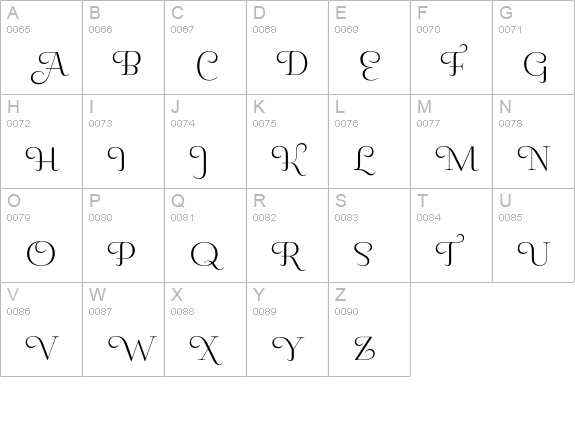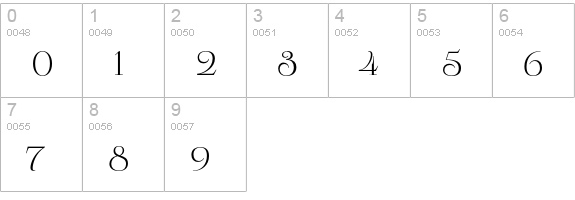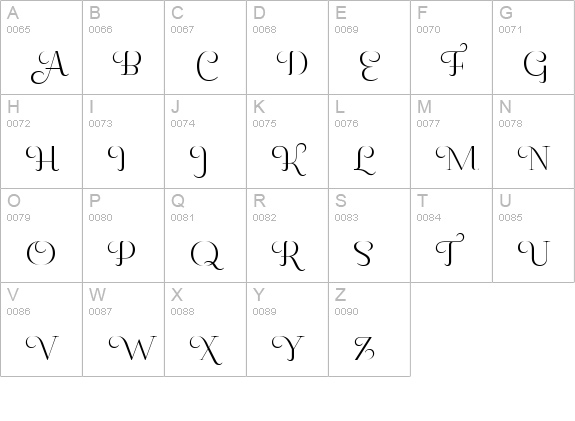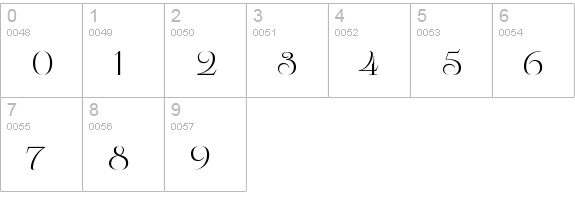
Pauline Didone Light Font Details
Pauline Didone Light is a refined, elegant variant in the Pauline typeface family \xE2\x80\x94 well suited to elegant body text, refined sub-headings, and luxury branding.
Pauline Didone Light font is a sophisticated and elegant typeface that exudes a sense of timeless beauty and refinement. With its graceful curves and delicate serifs, this font is perfect for adding a touch of luxury to any design project. The light weight of the font gives it a delicate and airy quality, making it ideal for use in headings, quotes, and other display text. Best of all, Pauline Didone Light font is available for free download at FontsMarket.com. Whether you're working on a personal project or a professional design, this font is sure to add a touch of class and sophistication. Download it today and elevate your designs with the timeless elegance of Pauline Didone Light.